3 Google Fonts Similar to Avenir Next
Avenir Next is a sans-serif spin off of it's classic Avenir font. It expands on the about of weights within the collection and has an emphasis digital design. It works great for any digital design.
Avenir Next is an iconic font that we see used throughout the web. So finding a similar looking font was a little tricky.
I dug throughout the fonts available on Google Fonts and below are the best alternatives to Avenir next.
What Google Fonts are Similar to Avenir Next?
The best Google Fonts that are similar to Avenir Next are:
- Prompt
- Muli
- Nunito
Anyone of these fonts would work as a great alternative. As usual, they are not going to be perfect replacements.
So lets cover the similarities and the differences.
Prompt
Prompt is a great option for Avenir Next for a few reasons. It does a great job at matching the lowercase letters. The letters do carry a little more weight, but the overall look and feel is there.
You will notice some minor differences on a closer look with the lowercase "g", "f", and "y". Overall, it's pretty solid.
The uppercase also does a fantastic job. Especially at matching the unique "Q" that Avenir Next has. It is able to match it almost spot on.
You will notice a difference in the "J" and "S".
Take a look below.
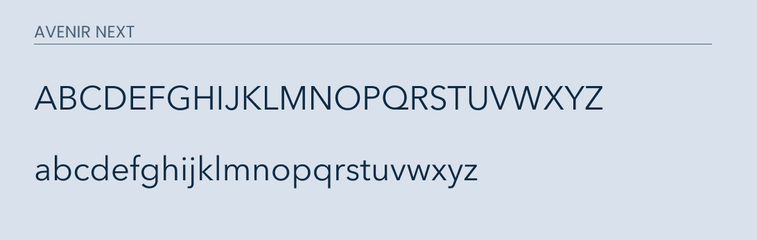
Muli
Muli is a great sans-serif font that is very popular because of how well it works on both web and print. It is also a great alternative to Avenir Next.
It does an awesome job at matching the lowercase letters, especially "g". Although different it also closely resembles the "y". I would argue that it is a close 95% match.
The similarity is also closely matched in the uppercase. If you are looking for the differences, you will find them in the "R", "Q", and "J'. Overall, it would make a good alternative font.
Nunito
Nunito would work as a good replacement for Avenir Next. It matches the majority of the letters when compared to other fonts.
The biggest difference is that Nunito's letters are more rounded while Avenir Next's letters are straight.
This works if you are going to for a fun and playful feel. Otherwise, I would recommend on of the fonts mentioned above.
Final thoughts
Avenir Next is a great font with its own look. Prompt and Muli will be your best bet if you are trying to imitate those styles. As always, I recommend supporting the creator by purchasing their font if you are in a position to do so.